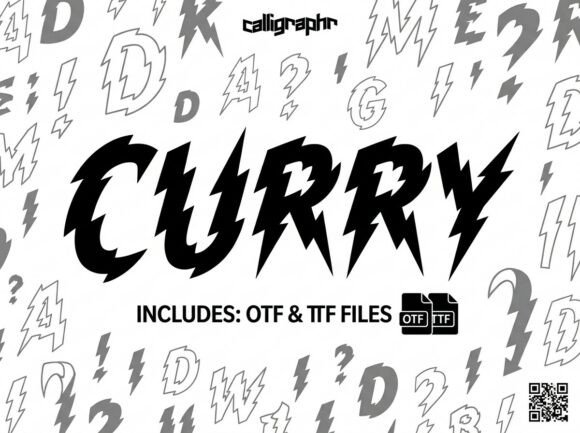
Electrify Your Visual Communication with Curry Font
In the world of typography, fonts play a crucial role in conveying the tone and personality of a brand or design. For those looking to add a spark to their visual communication, Curry font is an excellent choice. This dynamic display font is designed to capture the raw energy of a summer storm, making it perfect for high-energy applications.
The Inspiration Behind Curry Font
Curry font draws its inspiration from the raw power of lightning bolts. The font features jagged, high-contrast letterforms characterized by sharp angles and electric, z-shaped silhouettes. This bold typeface is designed to evoke a sense of instantaneous power and striking, artisanal intensity. The result is a font that exudes energy, making it an extraordinary choice for designers and crafters looking to make a statement.
Key Features of Curry Font
- Jagged, high-contrast letterforms: Inspired by lightning bolts, Curry font features sharp, jagged lines that give it a unique and dynamic look.
- Electric, z-shaped silhouettes: The font’s letterforms are characterized by electric, z-shaped silhouettes that add to its energetic and bold personality.
- Aggressive visual rhythm: Curry font has an aggressive visual rhythm that makes it perfect for high-energy applications such as sports branding, comic book titles, and music festival posters.
- Hand-drawn energy: The font’s hand-drawn energy gives it a unique, artisanal feel that sets it apart from other display fonts.
Use Cases for Curry Font
Curry font is an excellent choice for a variety of design applications, including:
- High-energy sports branding: The font’s bold, energetic personality makes it perfect for sports branding, especially for teams or events that require a dynamic and attention-grabbing visual identity.
- Comic book titles: Curry font’s comic book-inspired look makes it an excellent choice for comic book titles, adding a touch of excitement and energy to any comic book cover or interior design.
- Music festival posters: The font’s bold, eye-catching personality makes it perfect for music festival posters, adding a touch of energy and excitement to any music event.
- Edgy streetwear designs: Curry font’s bold, aggressive look makes it an excellent choice for edgy streetwear designs, adding a touch of rebelliousness and attitude to any apparel or accessory design.
Designing with Curry Font
When designing with Curry font, the possibilities are endless. Here are a few tips to get you started:
- Use it as a header font: Curry font is perfect for headers and titles, adding a touch of energy and excitement to any design.
- Pair it with a neutral font: Pair Curry font with a neutral font to create a striking contrast and add visual interest to your design.
- Experiment with colors: Curry font looks great in bold, bright colors. Experiment with different colors to find the perfect combination for your design.
Curry font is an excellent choice for designers and crafters looking to add a spark to their visual communication. With its bold, energetic personality and hand-drawn energy, it’s perfect for high-energy applications such as sports branding, comic book titles, music festival posters, and edgy streetwear designs. Whether you’re designing a header for a high-performance campaign or a standout logo for a bold creative project, Curry font delivers a sense of instantaneous power and striking, artisanal intensity.